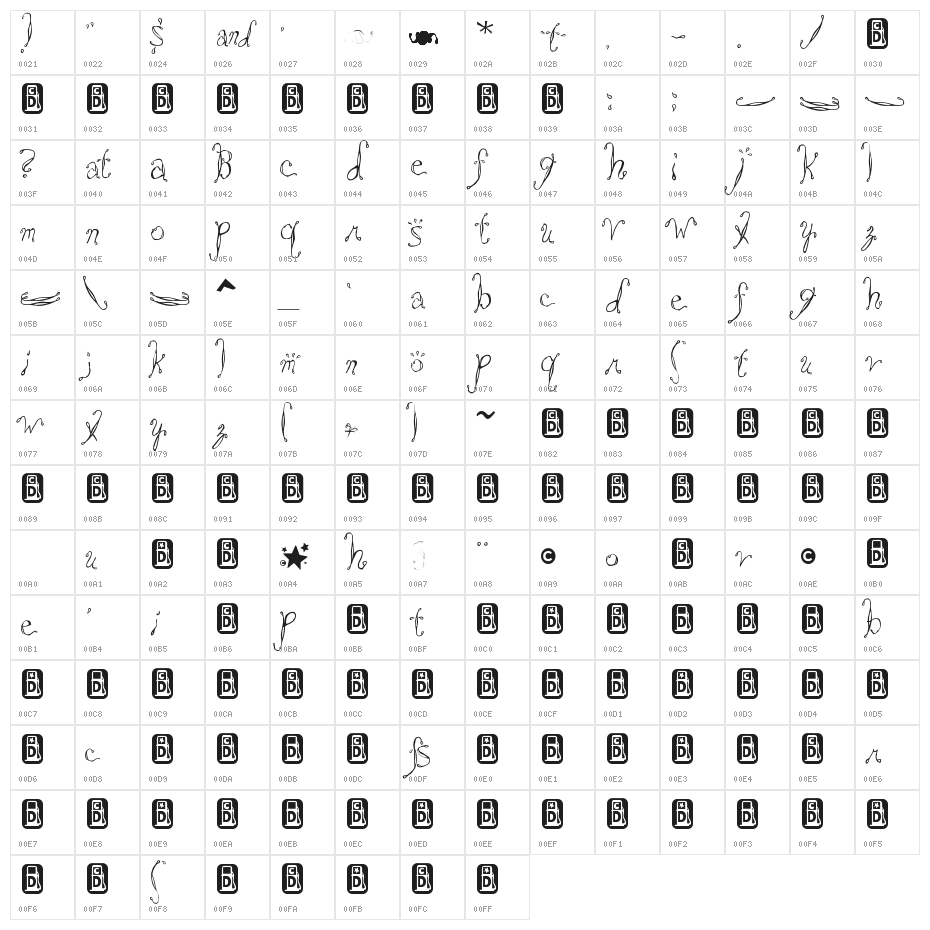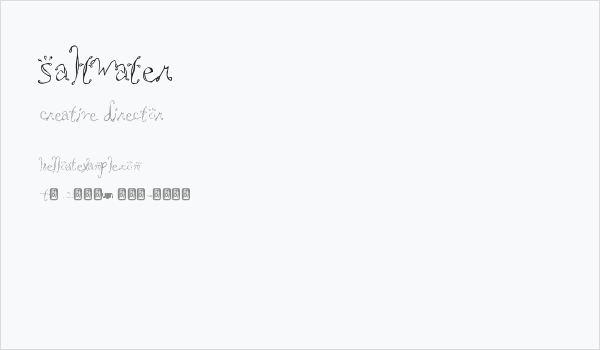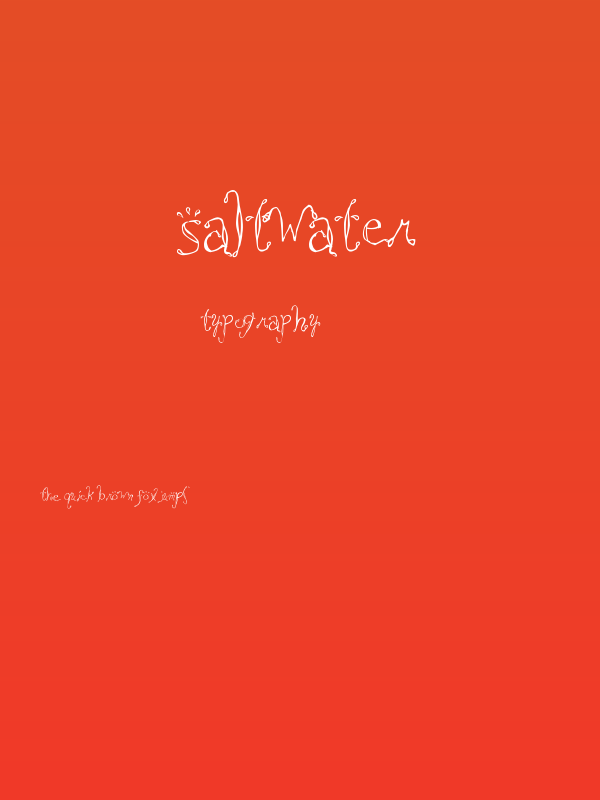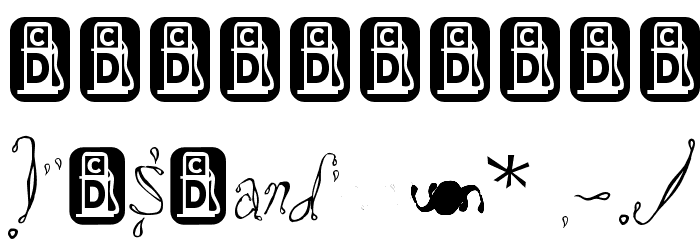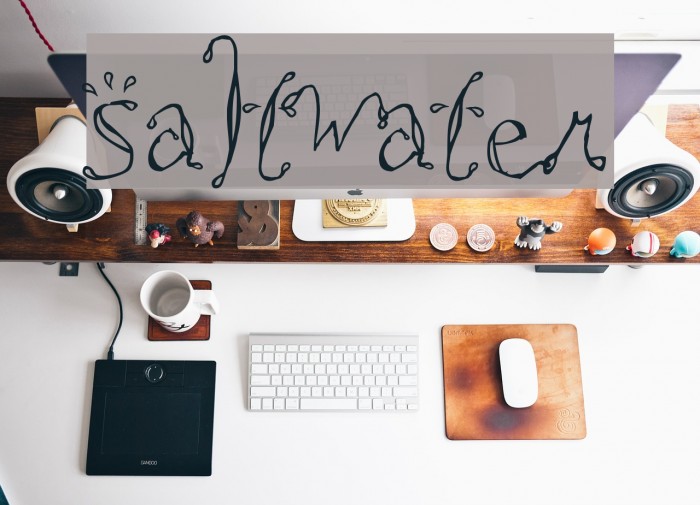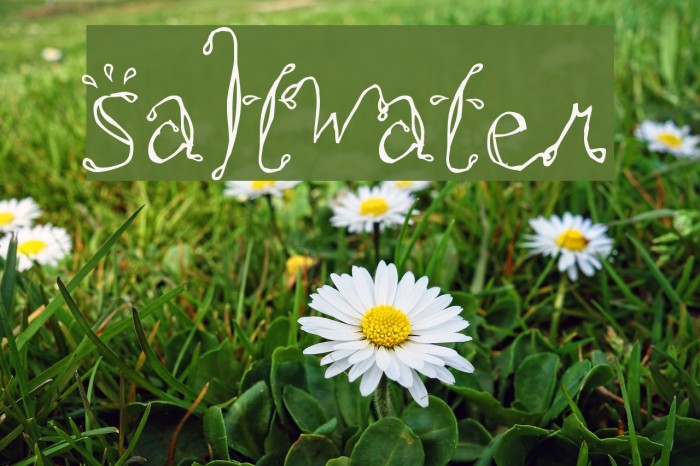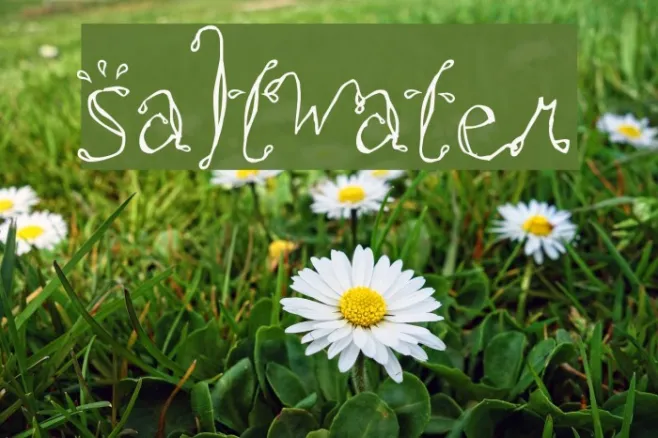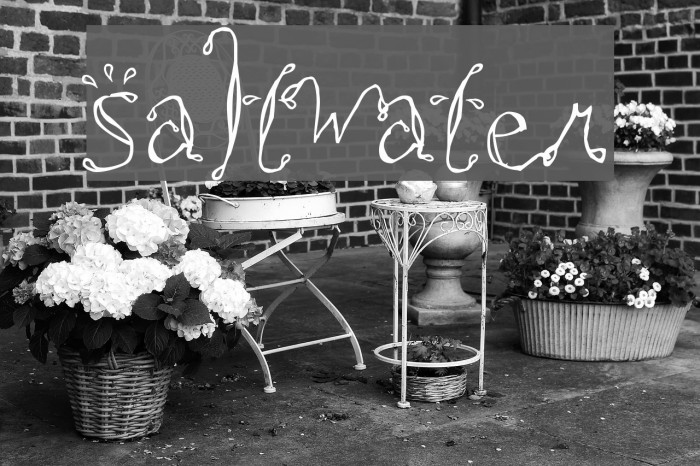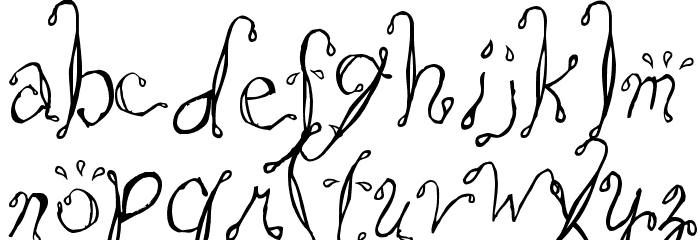
Saltwater Font
Saltwater Description
This font features a whimsical and fluid design, reminiscent of water droplets or flowing liquid. Each character is uniquely crafted with playful curves and loops, giving it a lively and dynamic appearance. The letters have a hand-drawn quality, with varying stroke thickness that adds to the organic feel. The font includes both uppercase and lowercase letters, numbers, and a selection of special characters. Its distinctive style makes it ideal for creative projects that require a touch of fun and originality.
| Use Case | Logos, Headlines, Artistic projects |
| Proposed Projects | Ideal for creative projects such as children's book covers, playful branding, greeting cards, and artistic posters. |